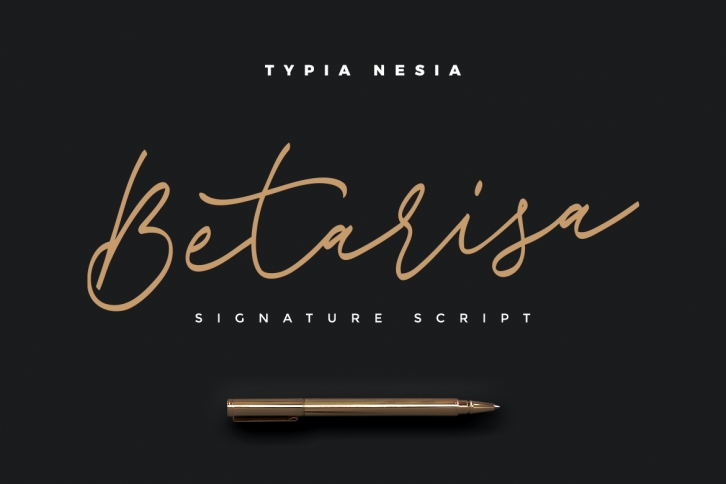
Betarisa is a beautiful font that was designed by Typia nesia. It's a great choice for designers and creatives who need such a font. It was released on May 29, 2017 and the file size is 11.7 MB. Betarisa may give a more youthful, expressive and casual look to your project. It is a very beautiful, refined, elegant, and high-quality font.